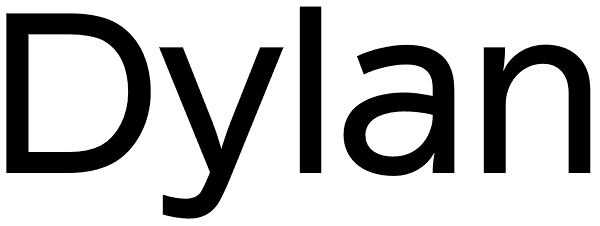
Dylan
»Dylan« is a Sans typeface in the best American tradition. In order to keep corners open and to make the font more readable in small sizes it has deep cuts where curves join straights. I designed 7 finely tuned weights with fitting italic sets. The...